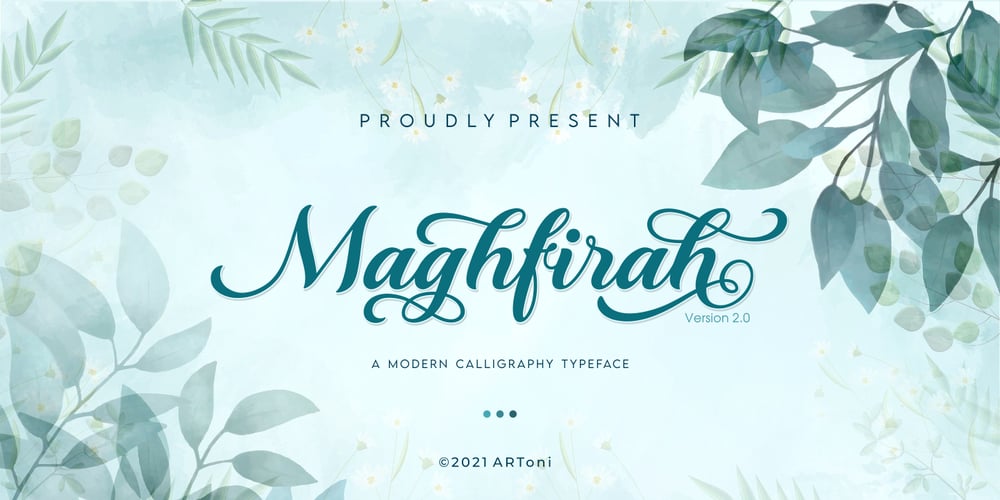
Maghfirah Two
Maghfirah Two font
Maghfirah Two Font Family was designed by Anthonie Van Hayu and published by ARToni. Maghfirah Two contains 1 styles and family package options. Maghfirah is a dazzling script font. This font is neatly crafted and highly detailed. Whatever the topic, this font will be a wonderful asset to your font library, as it has the potential to enhance any creation.This font is PUA encoded which means you can access all of the glyphs and swashes with ease!